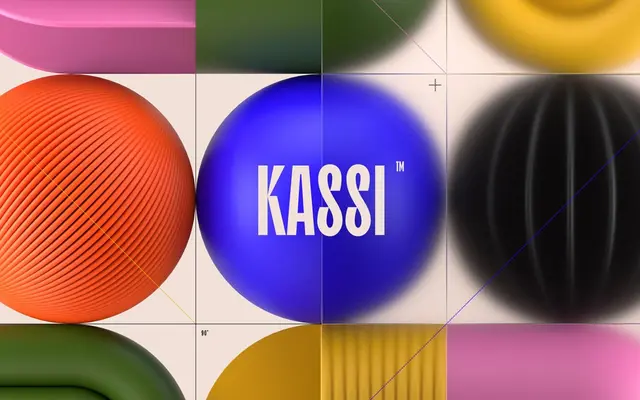
Kassi
Almarena · Jérémie Gauthier · 2022
A two-style ultra-condensed display face by Jérémie Gauthier, blending angular geometry with echoes of gothic fraktur and impact-style lineals.
Released in 2022, Kassi comes in Classic and Display variants, both sharing a high x-height, compressed counters and strongly marked verticals that nod towards German typographic tradition and early lineal grotesques like Impact. The angular letterforms and tight interletter spacing make it best suited to headlines, large-format print and display use where presence matters. Its broad Latin language coverage extends to over eighty languages across Western and Eastern European scripts.
Kassi is a heavily condensed, high-contrast display typeface with angular letterforms and references to gothic fraktur and impact-style lineals, placing it firmly in the display category with a condensed display subcategory.